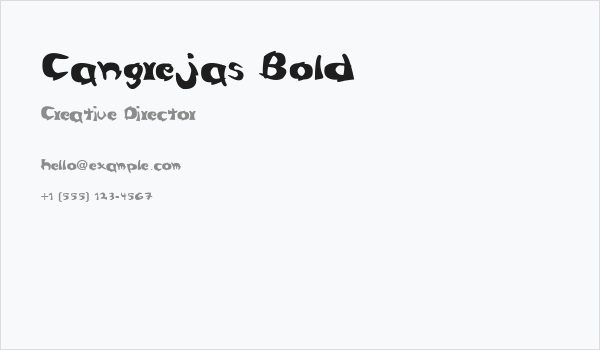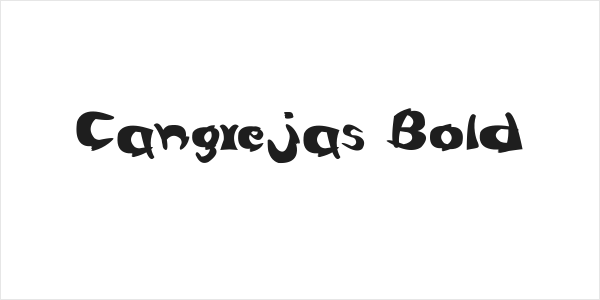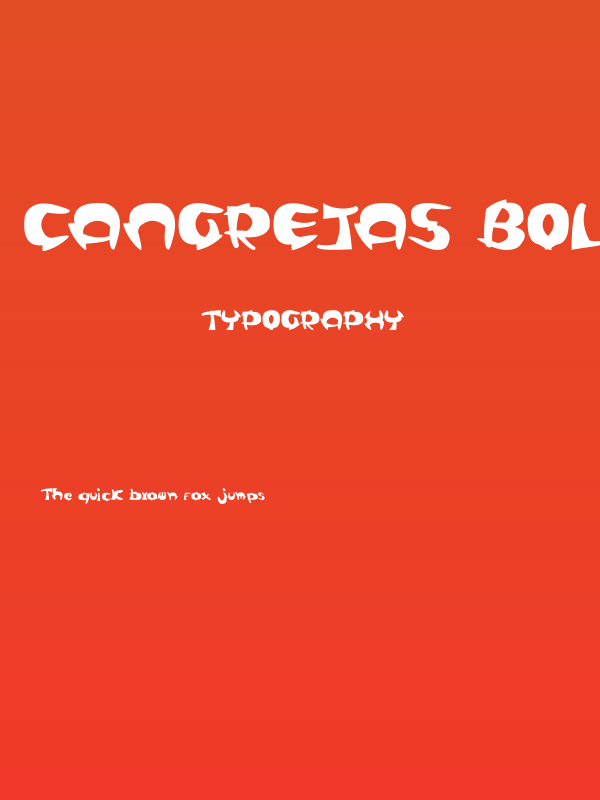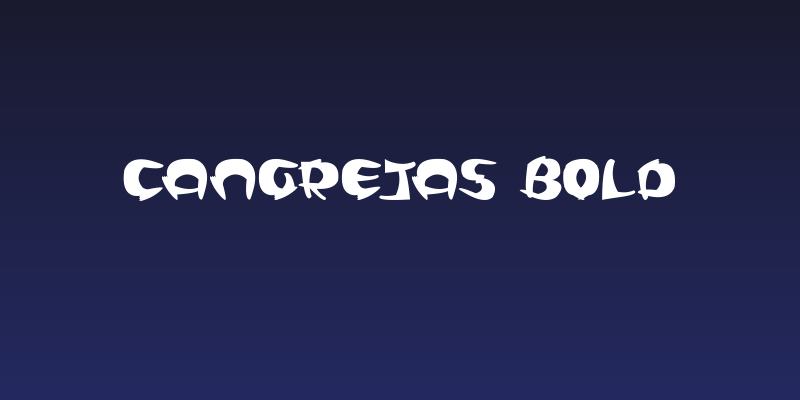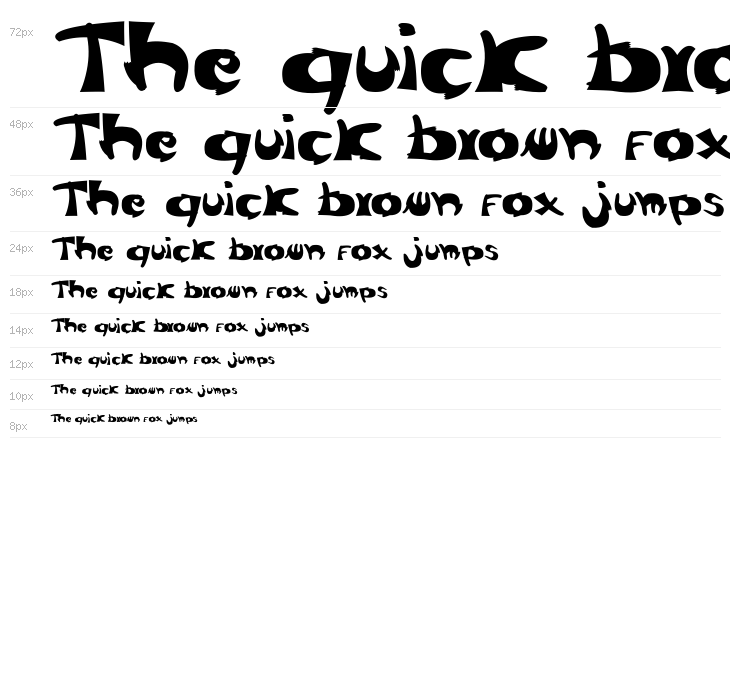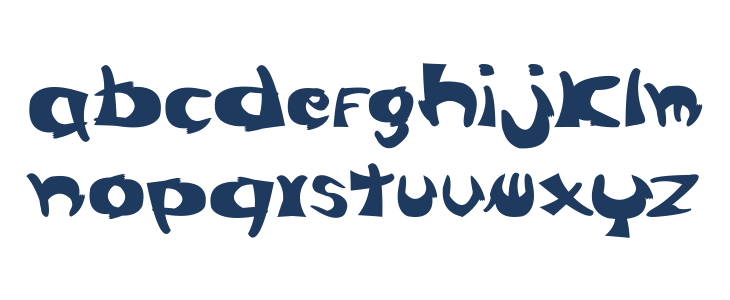
Cangrejas Bold Font
Cangrejas Bold Description
This font features a bold and dynamic style with a strong presence. The characters are designed with a playful and slightly irregular form, giving it a unique and artistic flair. The uppercase and lowercase letters maintain a consistent boldness, while the numbers and special characters complement the overall design. The strokes are thick, with varying widths that add an element of surprise and creativity. This font is ideal for projects that require a standout, eye-catching typeface.